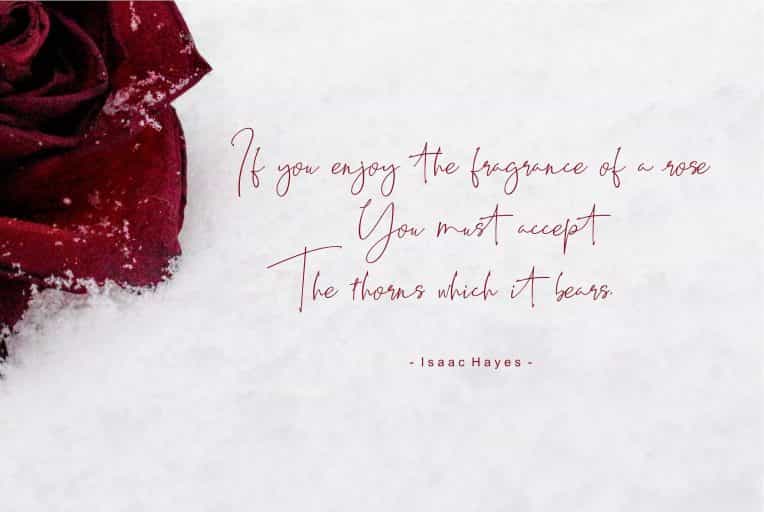
Introducing Best Deals Font, Best Deals are type of signature fonts with this font style like the style of real ink pens. This font is equipped with ligature, and also has language support, this font is perfect for, Logo, Posters, Business cards, Merchandise, Wedding invitations, magazine, book, Greeting cards, Banner, Blogs, clothing, Water-based paint designs, Prints, Quotes, clothes, and more.